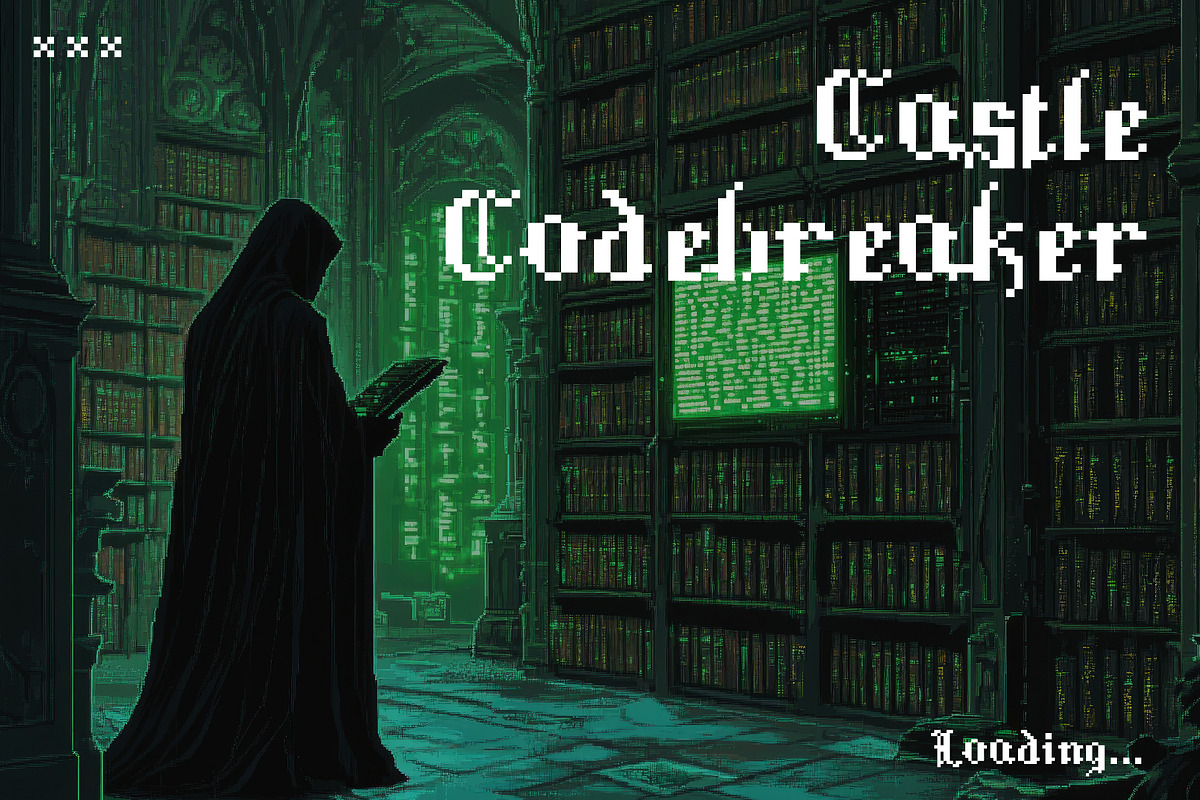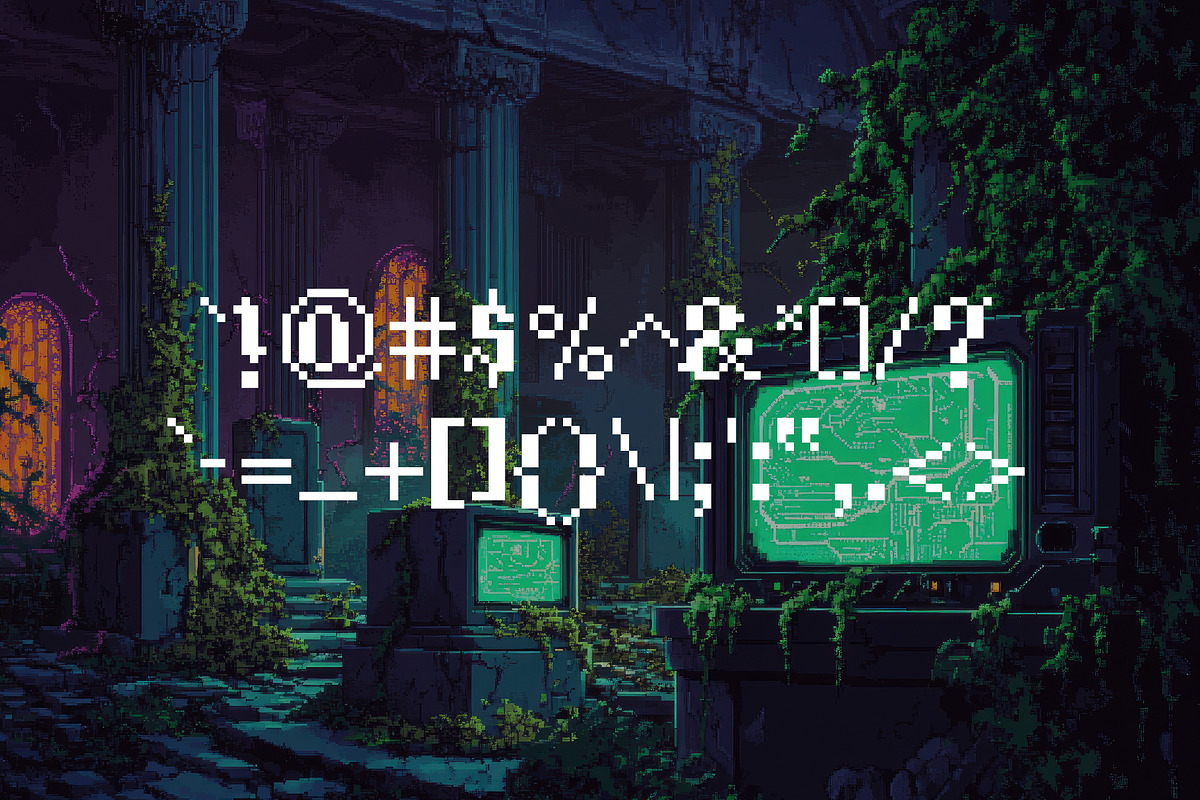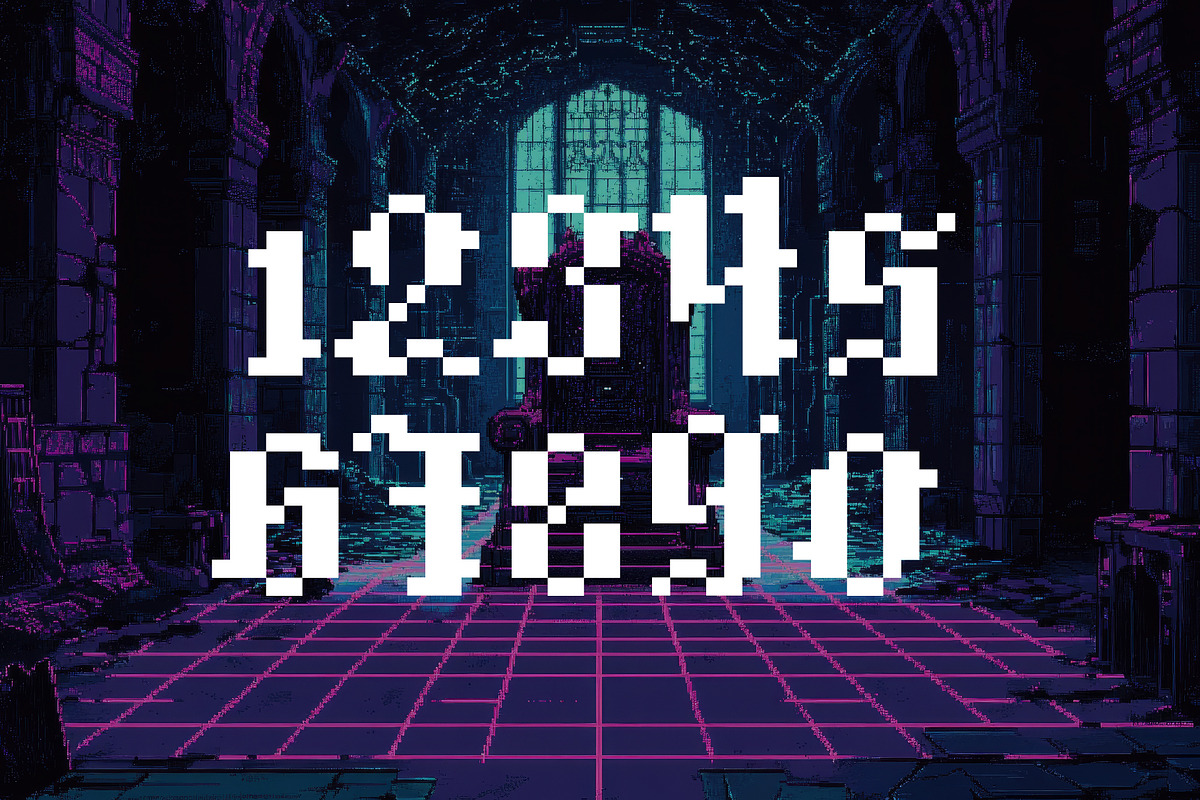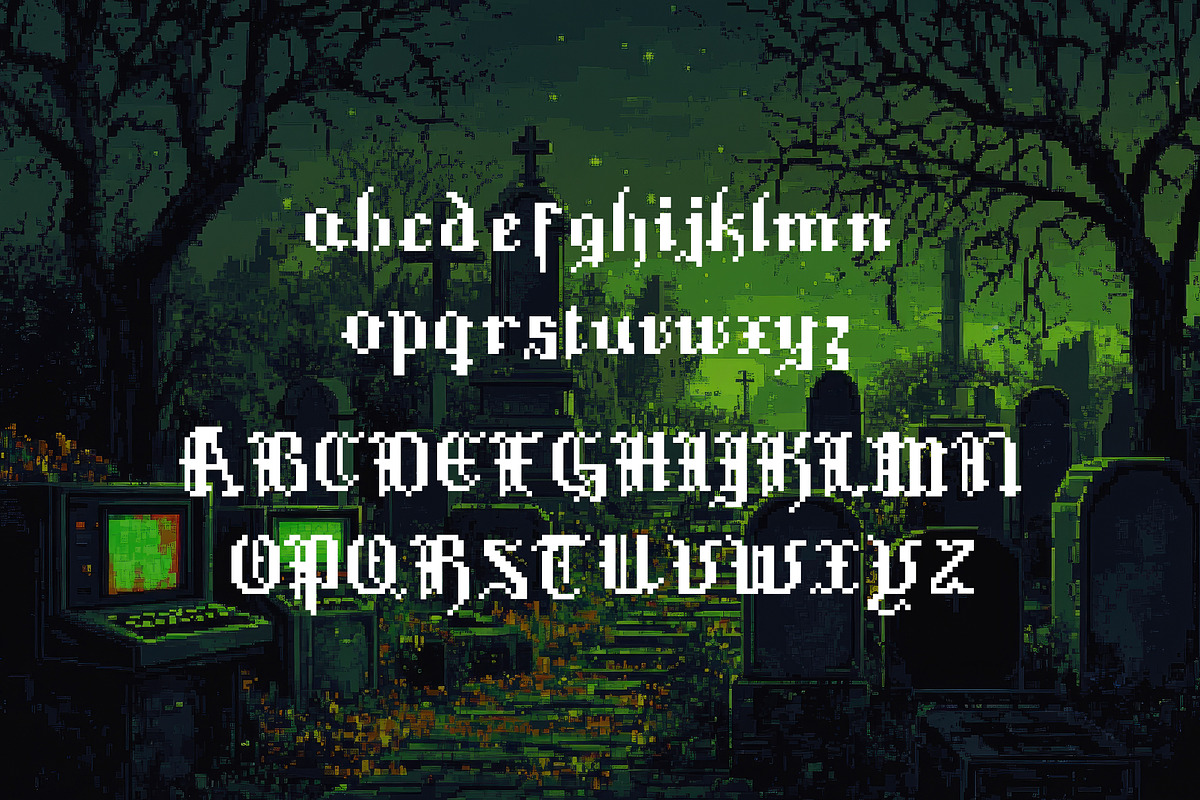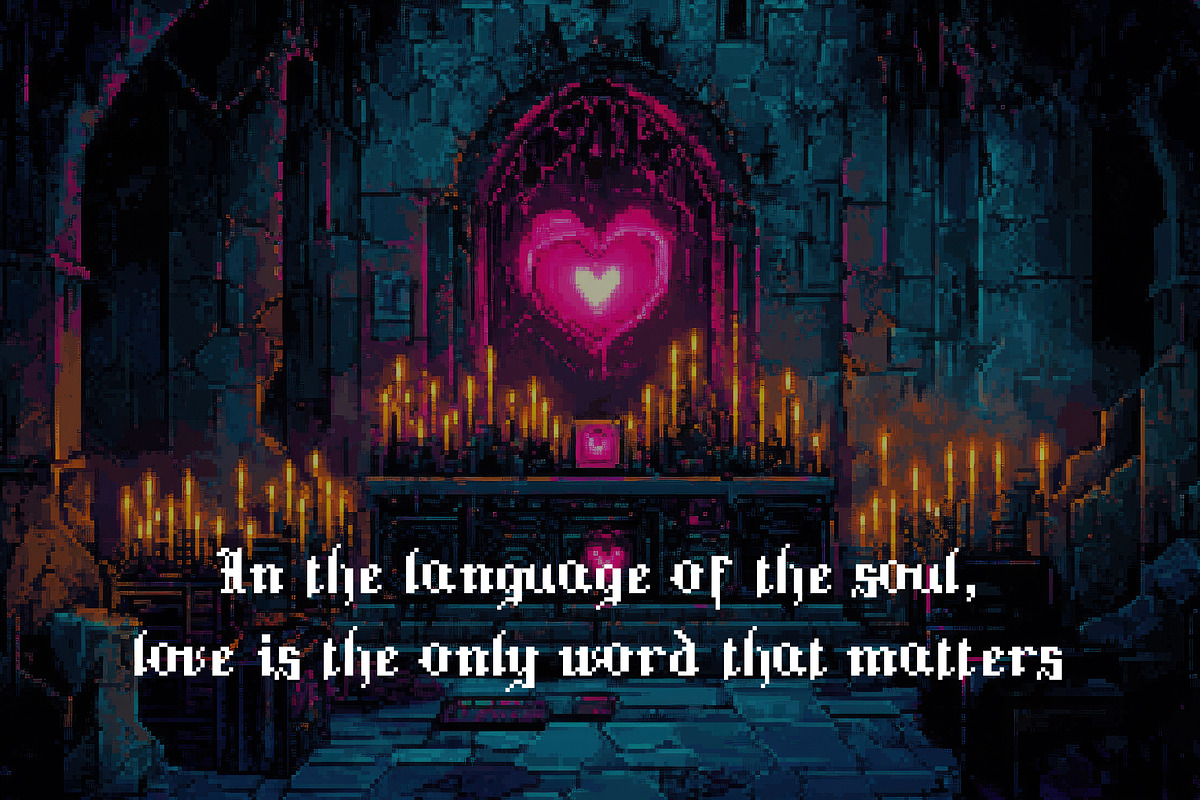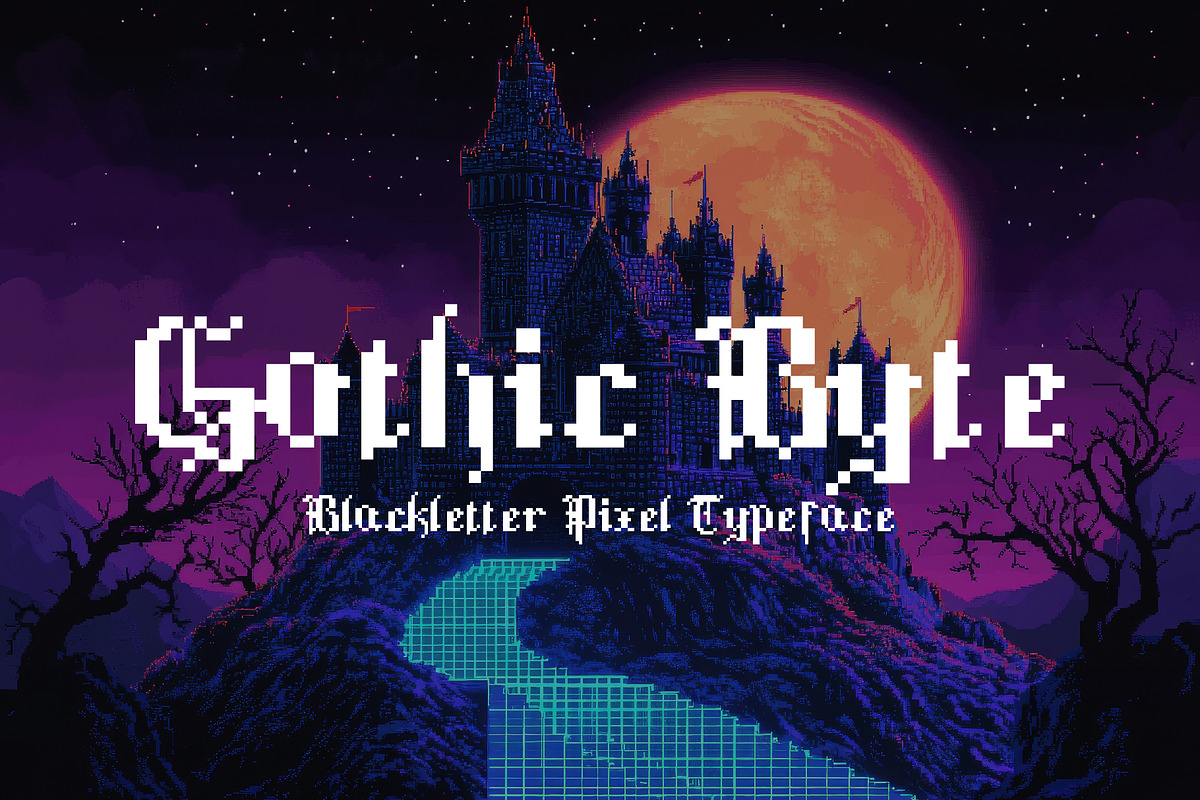
Gothic Byte - Blackletter 8Bit Type
Unleash the charm of the Middle Ages with Gothic Byte, a bold and unique blackletter-inspired 8-bit pixel font. Designed for the digital age, this typeface seamlessly blends the intricate elegance of medieval scripts with the clean, blocky aesthetic of retro gaming.
Perfect for computer-based projects, video game designs, or anything needing a blend of old-world sophistication and pixelated nostalgia, Gothic Byte brings a captivating edge to your creative work. With its sharp angles and authentic blackletter style, this font is ideal for titles, UI design, posters, and more. Let Gothic Byte knight your next project with digital royalty!